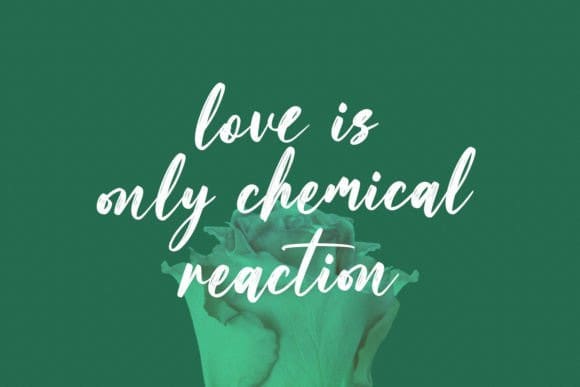
Simstary Brush Font
Simstary Brush Font is a casual and modern slant brush script font. Fall in love with its incredibly versatile style and use it to create gorgeous wedding invitations, beautiful stationary art, eye-catching social media posts, and much more!